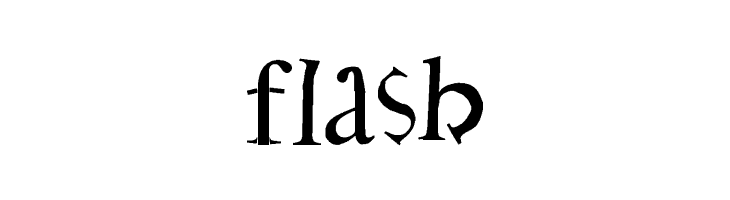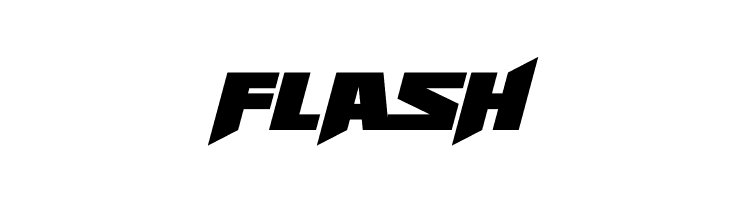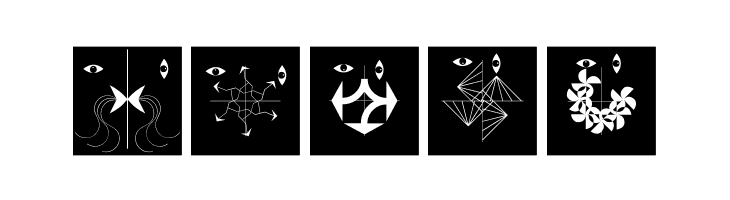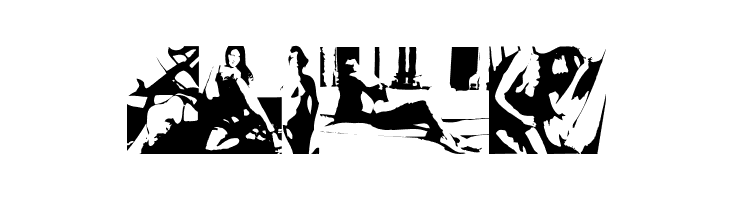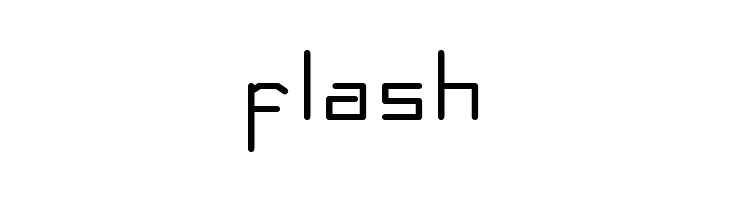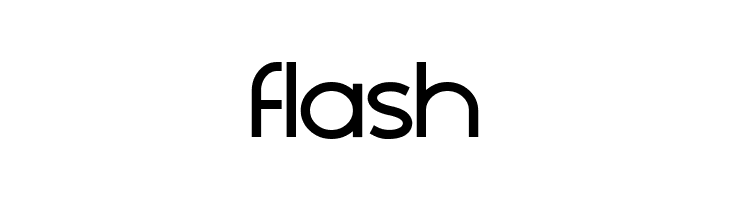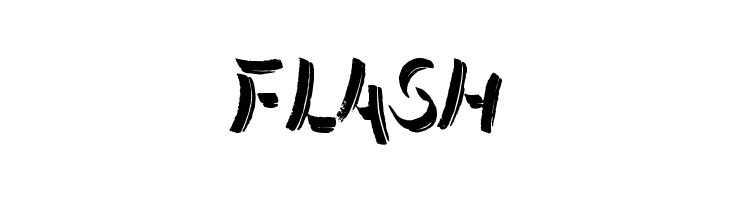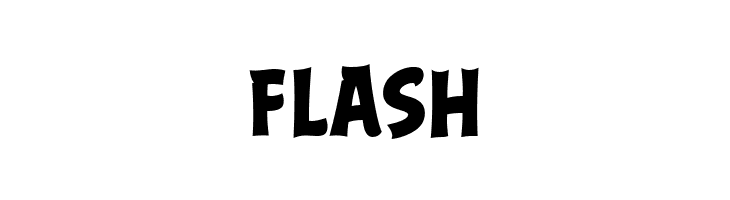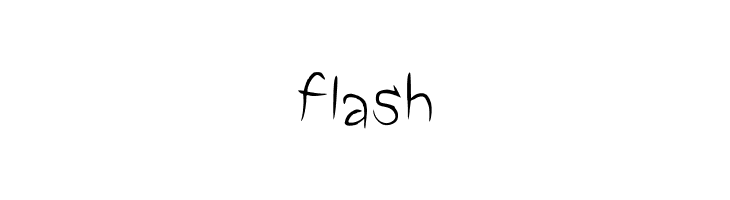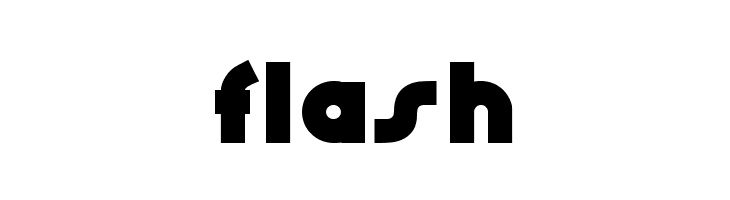
A collection of geometric shapes with a striped, slatted design.
A serif font with a hand-drawn, artistic style and dynamic stroke widths.
A bold, serif font with a distressed and disordered appearance.
A playful, hand-drawn font with a whimsical and friendly style.
A playful, handwritten font with smooth, flowing curves and interconnected letters.
A dramatic, expressive font with sharp, elongated strokes and a dynamic flow.
A modern, geometric font with clean lines and balanced spacing.
A modern, geometric sans-serif font with a clean and balanced appearance.
A whimsical, script-like font with a hand-drawn, artistic style.
A playful, decorative font with whimsical illustrations on each letter.
A bold, geometric font with strong, angular shapes and a modern aesthetic.
A bold, geometric font with a modern and assertive style.
A bold, geometric font with angular, striking characters.
A bold, hollow, geometric font with a modern aesthetic.
A bold, geometric font with a modern and assertive style.
A bold, italic font with a modern and dynamic style.
A bold, italic font with a modern, dynamic style.
A bold, geometric font with a narrow width and modern appeal.
A bold, geometric font with sharp angles and clean lines.
A bold, brushstroke font with a textured, artistic style.
A collection of abstract, artistic symbols resembling faces, with unique and intricate designs.
Abstract, collage-style font with high visual complexity.
A playful, hand-drawn style font with bold, irregular strokes.
A bold, angular font with a modern, aggressive style.
A bold, italicized font with sharp angles and a futuristic design.
A modern, geometric font with a futuristic and digital aesthetic.